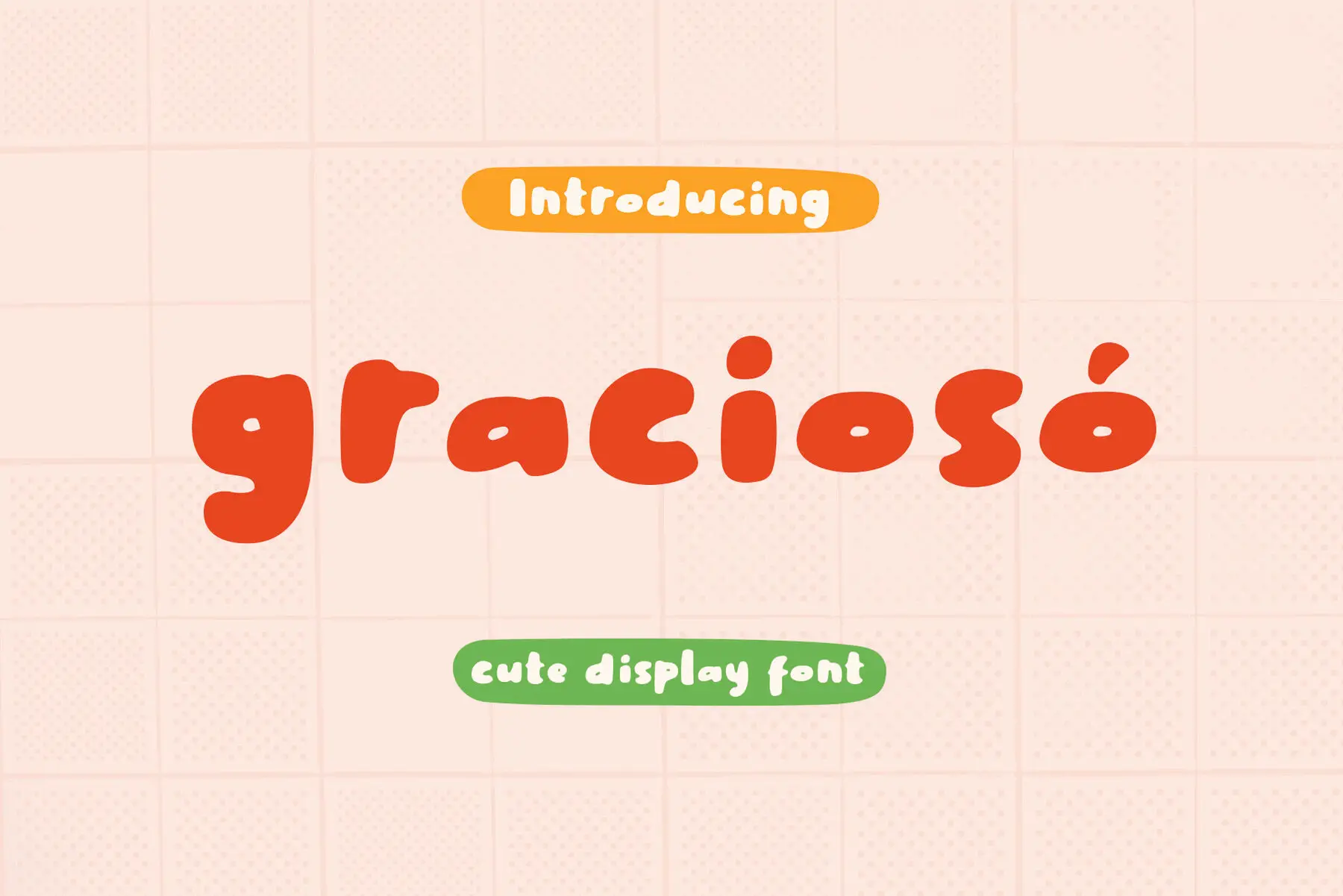
Gracioso Font
Gracioso
Meet Gracioso, the captivating display font that combines charm and modern flair. Crafted with a bold, playful aesthetic, Gracioso effortlessly enhances any trending design project. Its endearing style and strong presence make it an ideal choice for a wide array of applications. Utilize Gracioso to add a touch of personality and style to all your creative endeavors, making each project truly stand out.Gracioso: The Charismatic Display Font